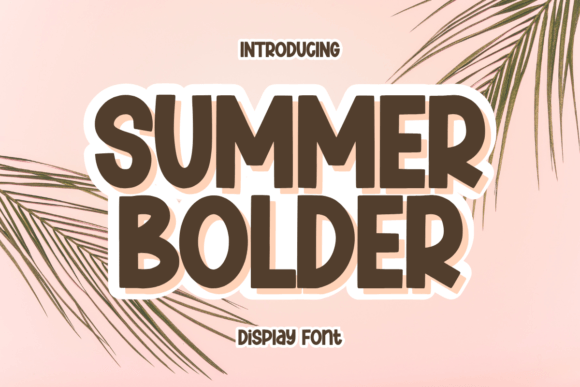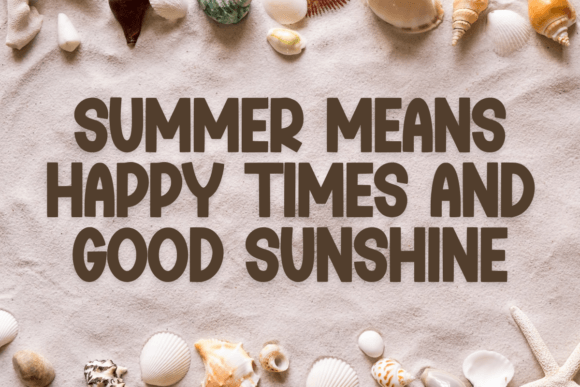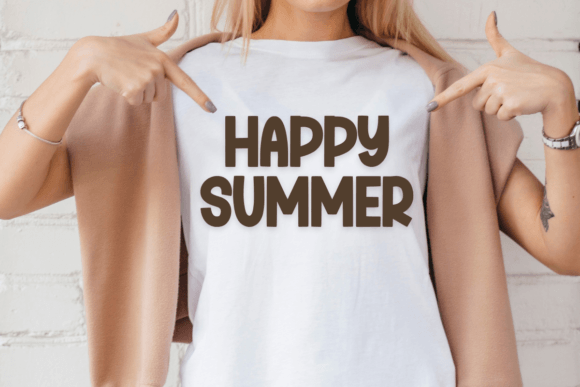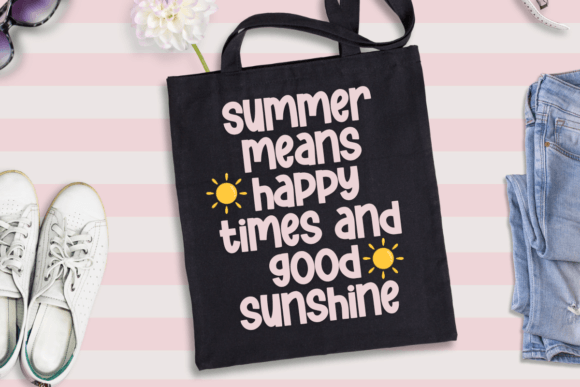
Summer Bolder Font: A Playful Display Font for Cute DIY & Cricut Projects
About the Summer Bolder Font
Step up your design game with Summer Bolder Font, a font that exudes confidence and style. Summer Bolder is a fun and quirky display font. This font is very suitable for your various creative needs such as printing, books, titles, headlines, weddings, quotes, Pillow, Invitation, photography, decoration, branding, logos, and others.
Summer Bolder Font Usage Examples
Summer Bolder Font Example